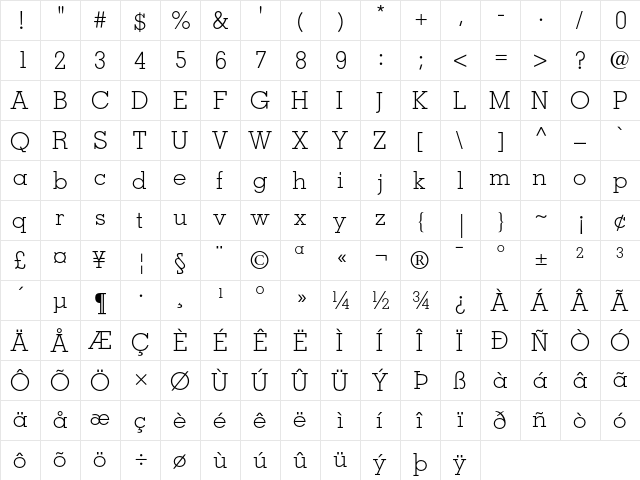
Memphis Light Font Preview
Memphis Light
Memphis Light Font Details
Design Context for Memphis Typeface
Memphis offers clean, dependable letterforms without strong stylistic allegiance, making it a practical choice for designers who need flexibility. The delicate stroke weight brings airiness and refinement to layouts.
Pro Tip: Use Memphis in both headline and body roles to test its range before committing to a single application.